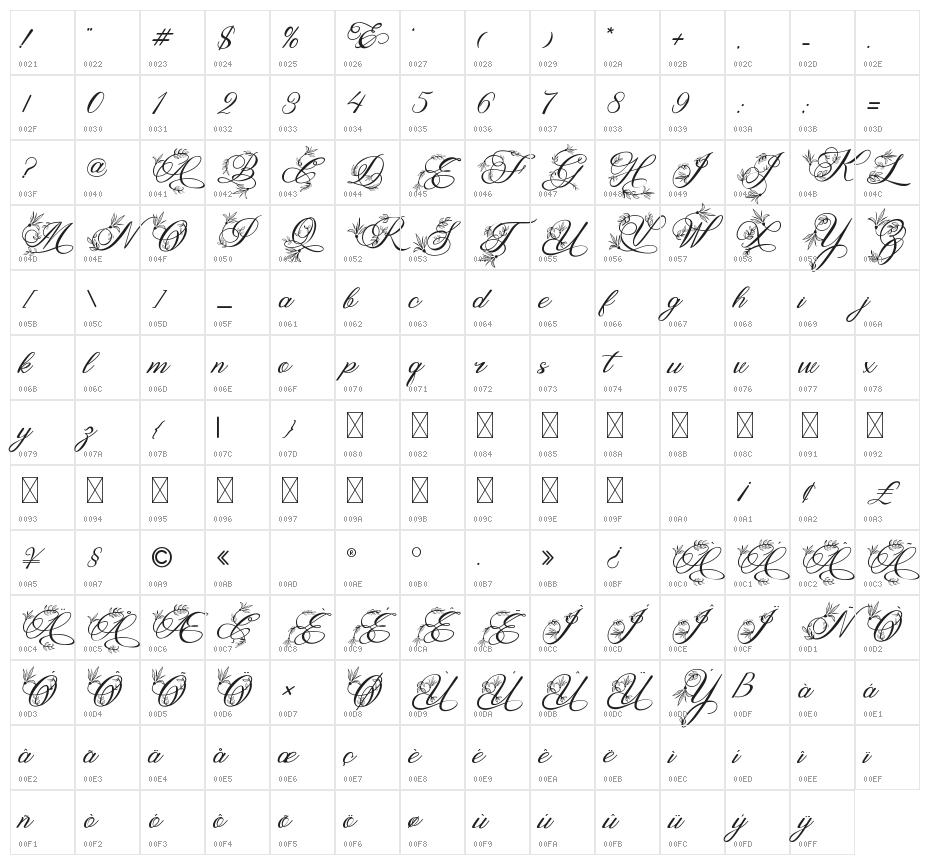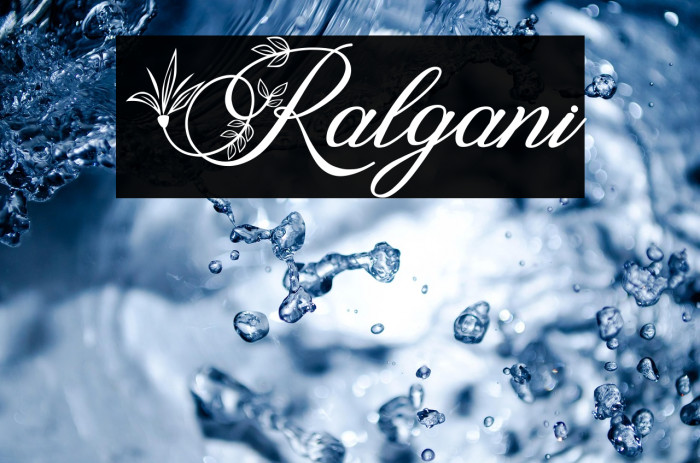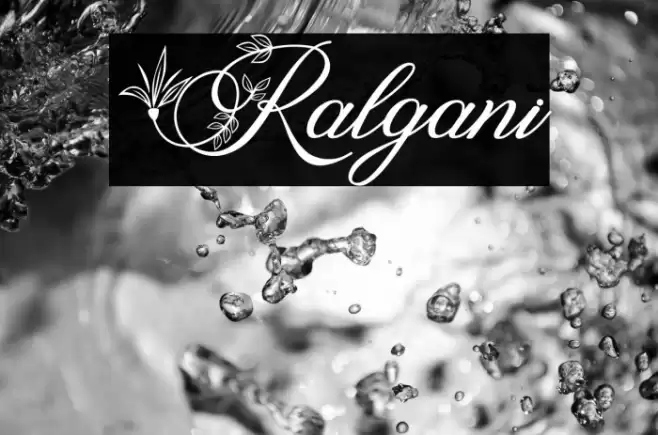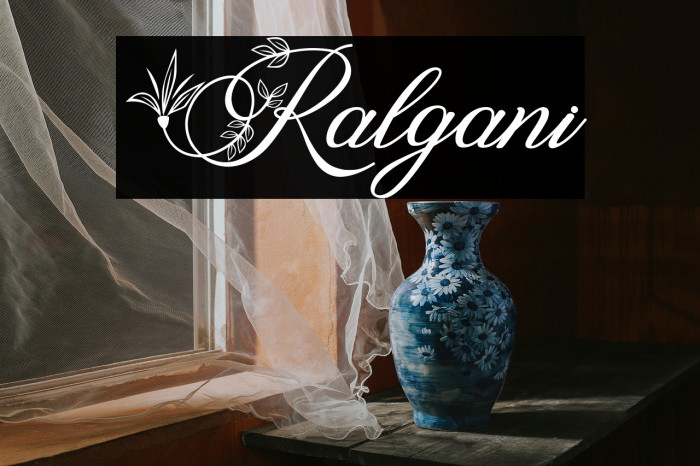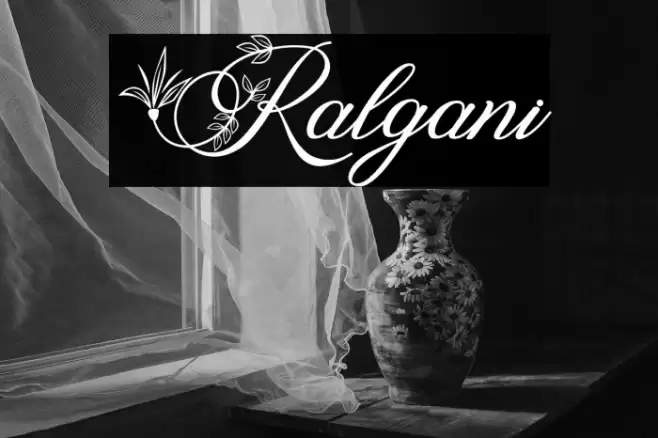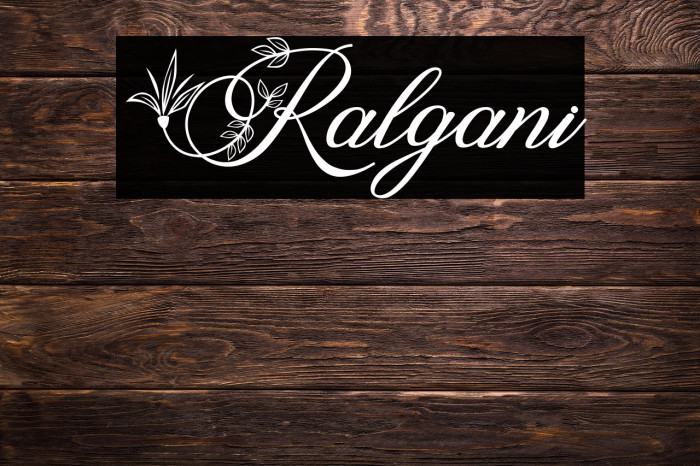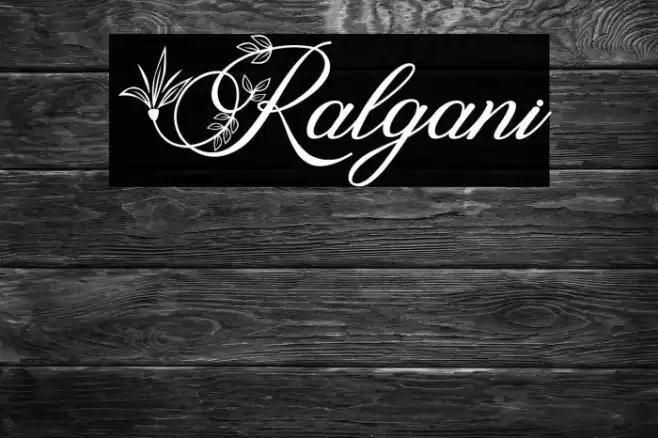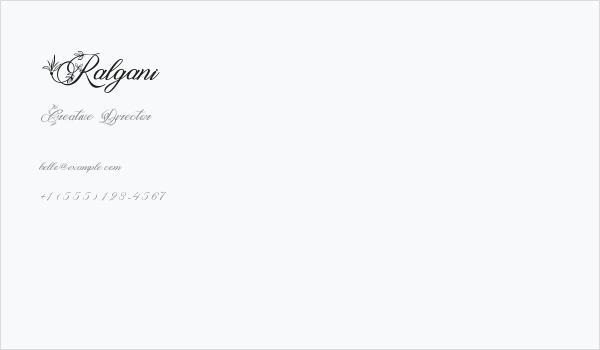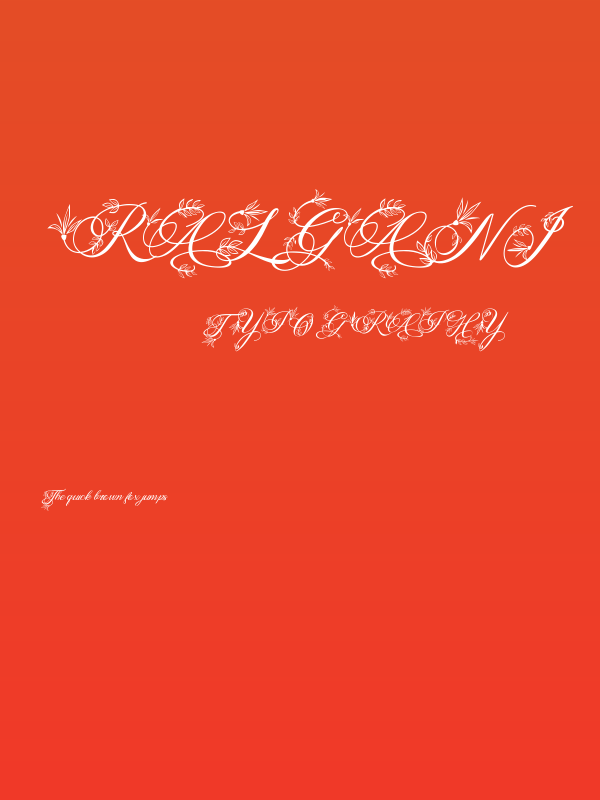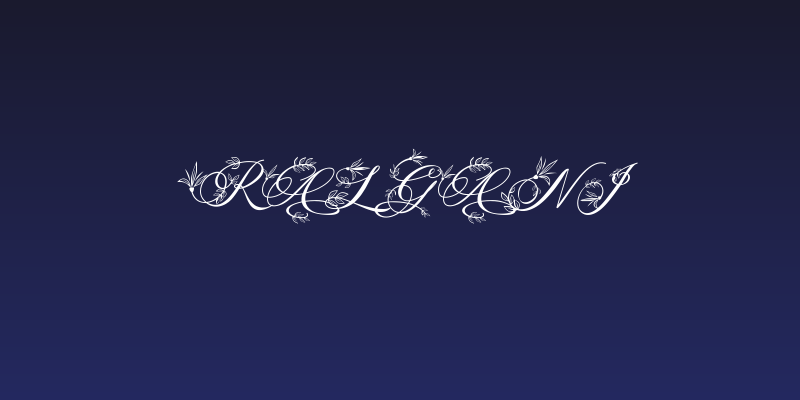
Ralgani Font
Ralgani Description
This elegant script font features a sophisticated and ornate design, with uppercase letters adorned with intricate floral embellishments. The lowercase letters maintain a smooth, flowing style, exuding a sense of grace and fluidity. The numerals are delicately crafted, complementing the overall aesthetic. Special characters are included, adding versatility to the font's usage. The font's refined appearance makes it suitable for formal and decorative applications, where a touch of elegance is desired. Its artistic flair is evident in the detailed strokes and curves, making it a standout choice for projects that require a luxurious and classic touch.